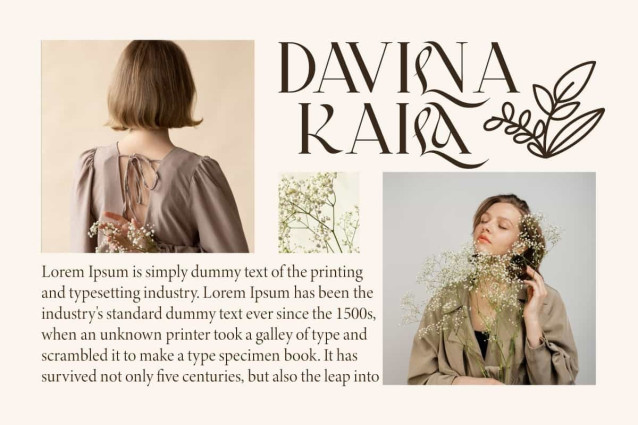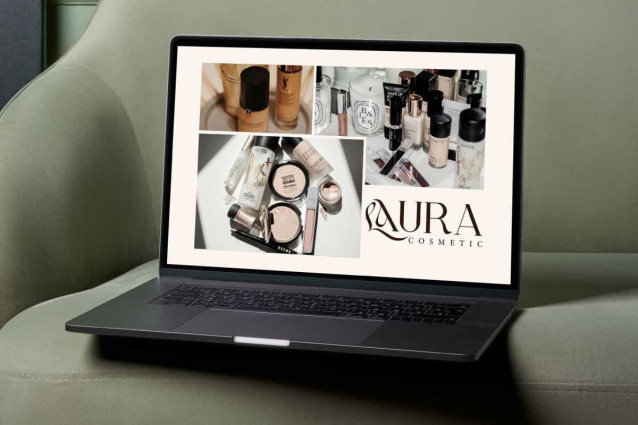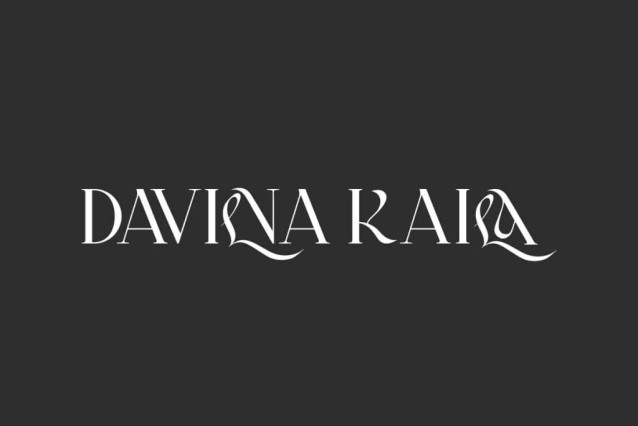
Davilna Kaila Font
Davilna Kaila Font is a perfect display serif font for those who want a classic look with an elegant touch. This font will be perfect for various projects, such as signage, advertising, blog, branding images, custom design, invitation, label, layout design, quote, stationery, template design, website and more!
Davilna Kaila Font includes full set of Uppercase and Lowercase Basic Characters, Numerals, Punctuation, and Symbol. This font contain Ligature character that bring luxurious and classy feel in every stroke. Making it a perfect choice for a variety of fields, such as accessories and jewelry, fashion, beauty product, event or wedding organizer, florist, furniture, real estate, spa salon, etc.